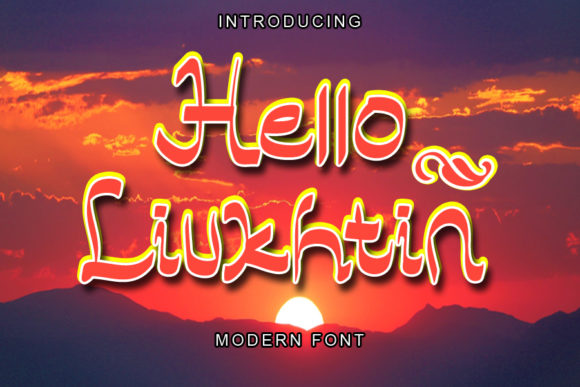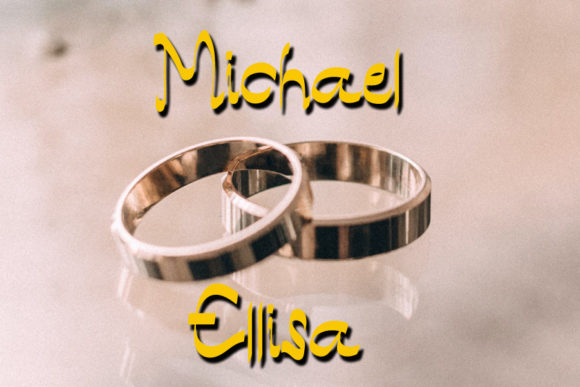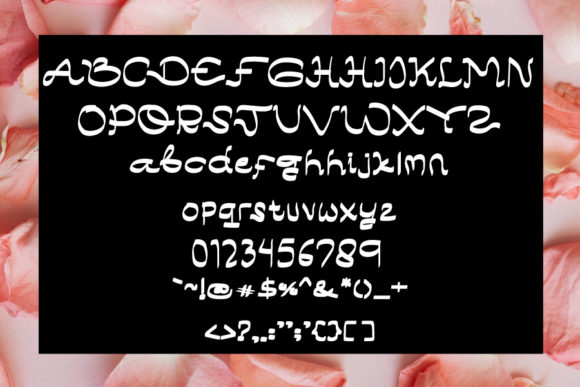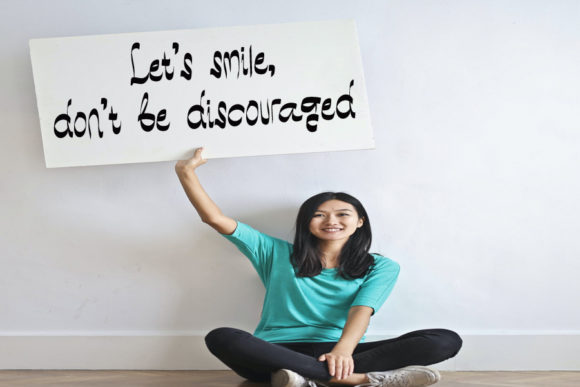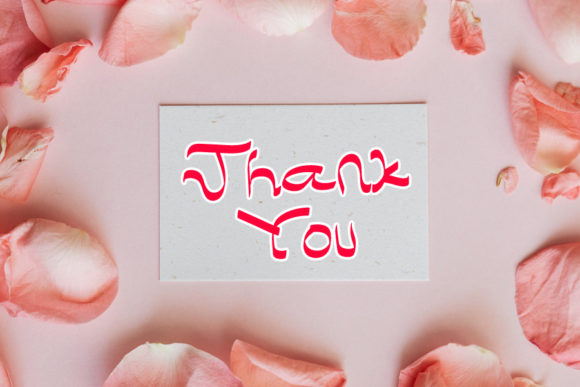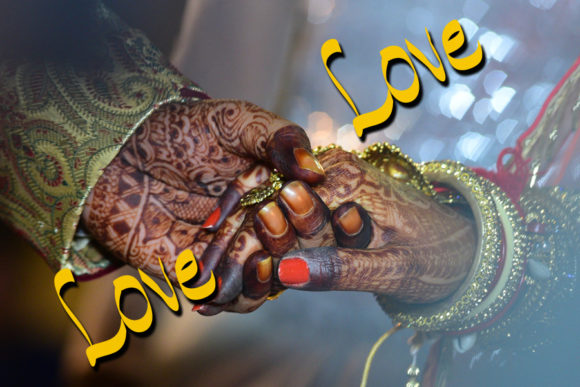
Hello Liukhtin Font
Hello Liukhtin is a fresh and refined handwritten font. Not too thin and not too thick, balanced and varied, this font was designed to enhance the beauty of your projects.